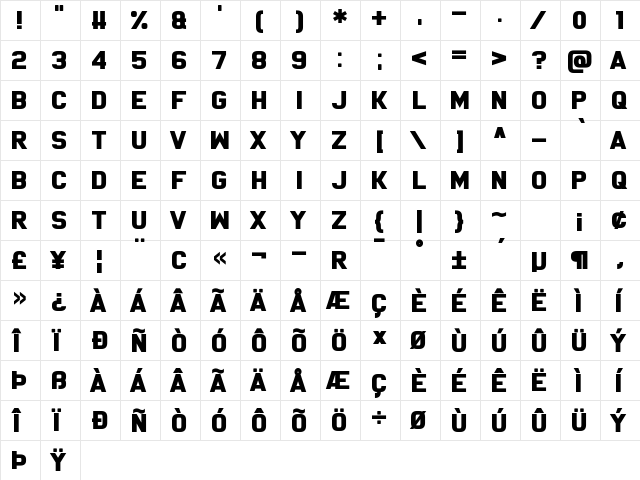
Achtung! Polizei Regular
Design Context for Achtung! Polizei Typeface
Achtung! Polizei takes a measured approach to typography — its balanced proportions and neutral character make it a reliable workhorse for both digital and print work.